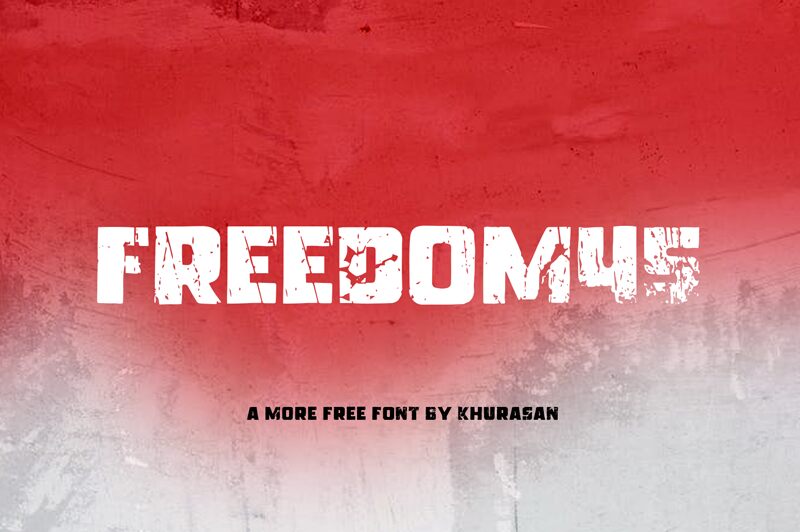
Freedom45, designed by Khurasan, is a captivating display font that effortlessly captures attention. Its eroded style adds a touch of ruggedness and rawness to any design project.
With an extra-bold weight, it exudes strength and confidence, making it perfect for bold headlines and impactful titles. The semi-expanded width of Freedom45 allows for increased legibility without sacrificing its unique charm. Ideal for vintage-inspired designs, adventurous branding projects, or edgy album covers, this font will surely leave a lasting impression on your audience.